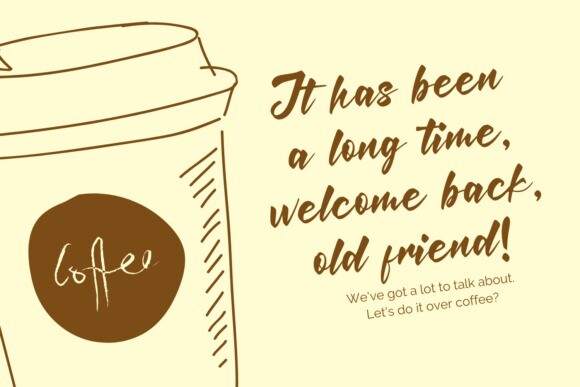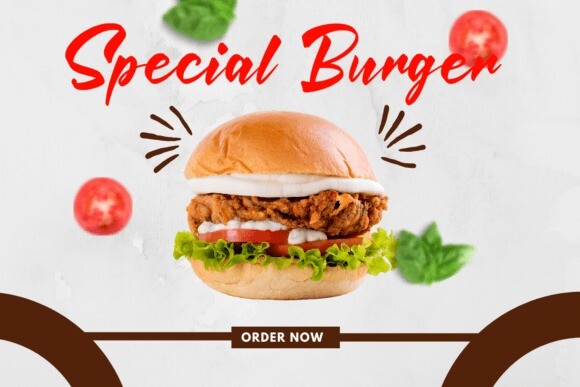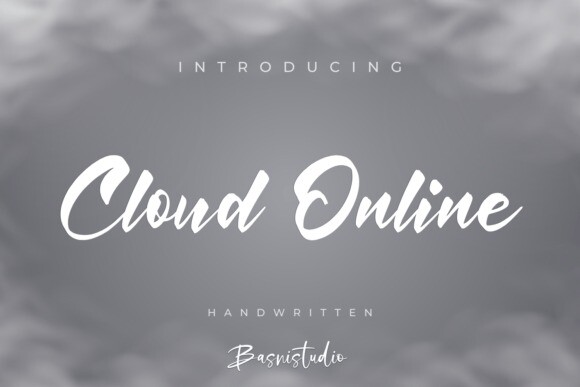
Cloud Online Font
Cloud Online Font is a fun, playful marker font that looks like it was written with a thick marker. It’s perfect for adding a cheerful touch to posters, invitations, and other creative projects!